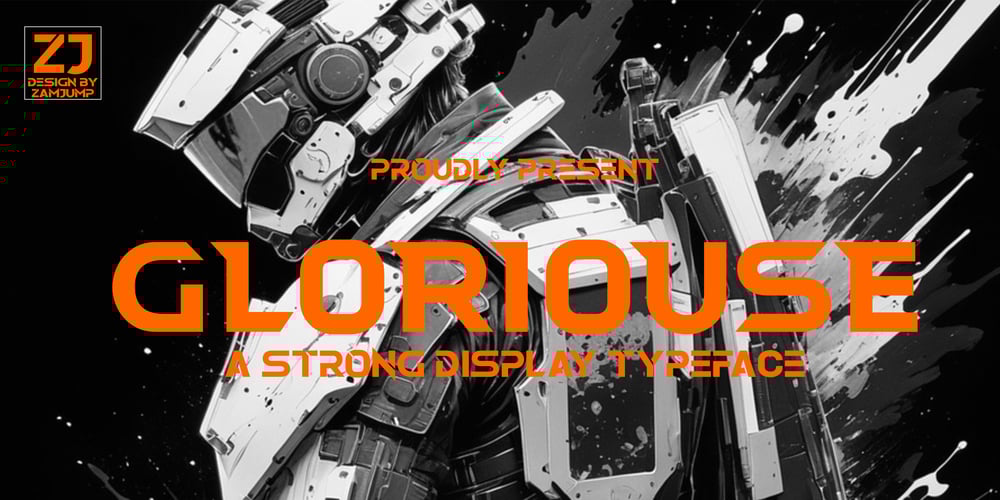
Gloriouse Font Family was designed by Zamjump, Ahmad Zamzami and published by Zamjump. Gloriouse contains 1 styles and family package options. Gloriouse is a powerful and dynamic display font designed to make a bold statement. Its sleek and modern design, with sharp edges and futuristic elements, makes it perfect for sci-fi themed projects, logo design, gaming, websites, and more. This versatile typeface delivers a strong visual impact, capturing attention with its unique character shapes and geometric precision. Whether you’re crafting eye-catching posters, cutting-edge digital interfaces, or branding for a tech-focused product, GLORIOUSE brings a sense of strength and sophistication that elevates any design. Get ready to stand out with a font that combines futuristic aesthetics with bold readability.